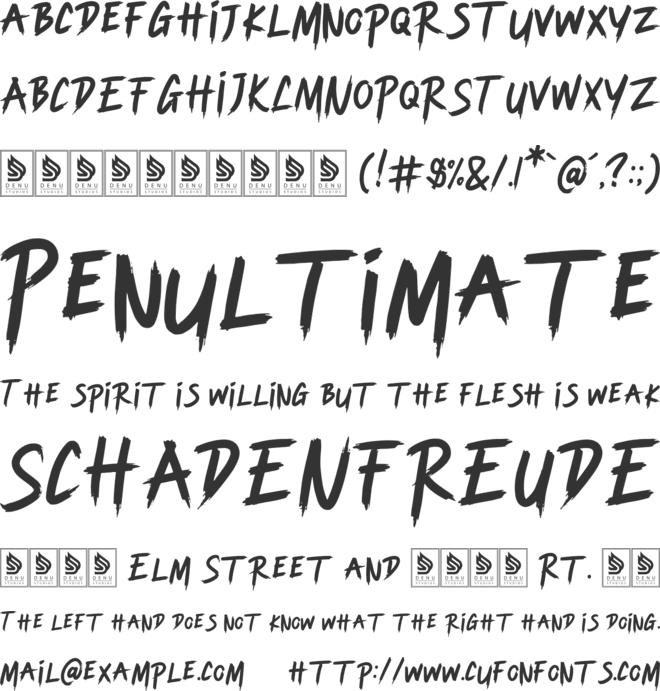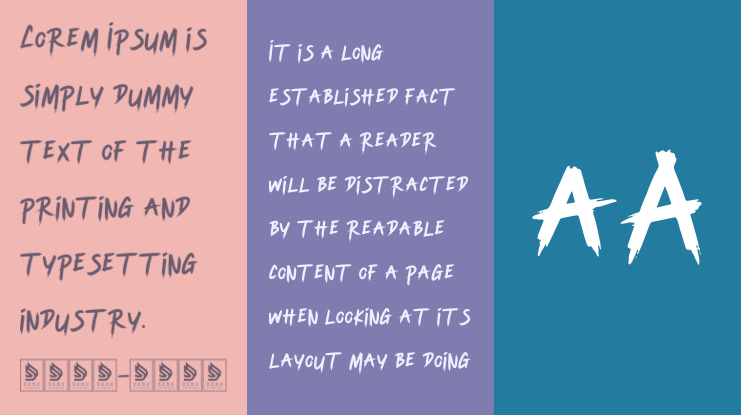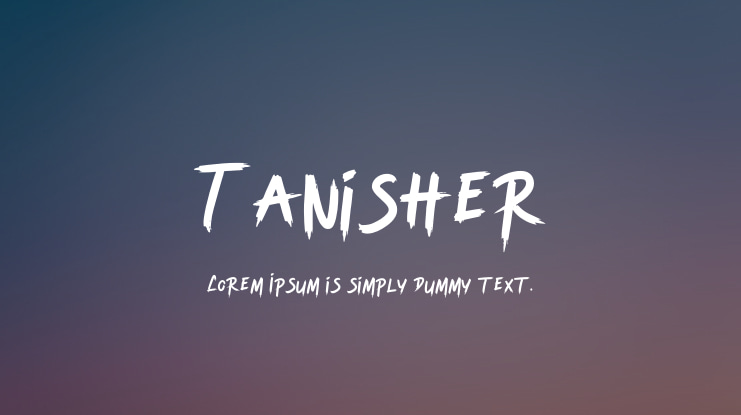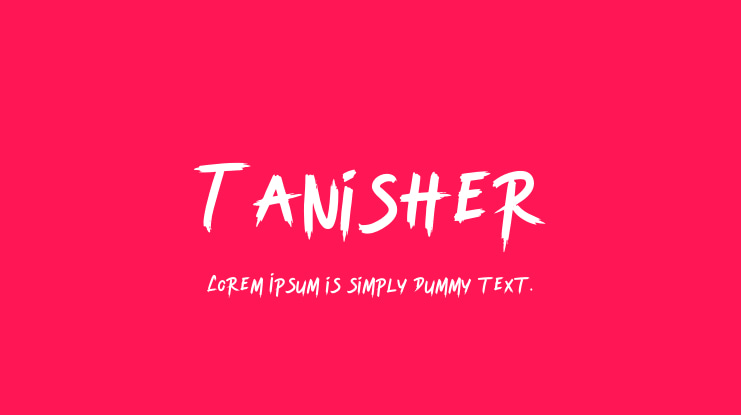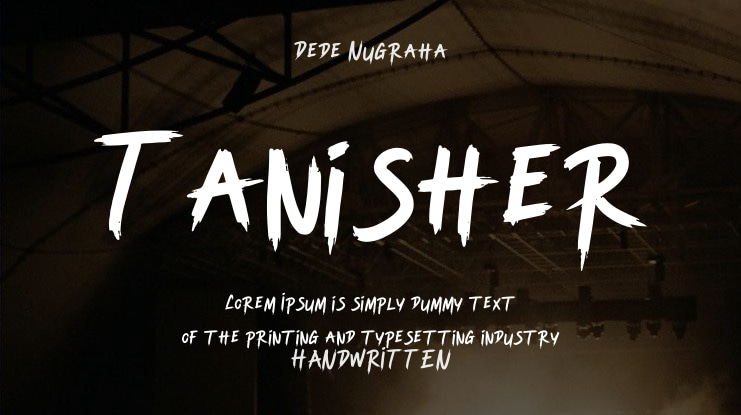
Tanisher | Urban Brush Font is perfect for a variety of projects including logos, branding, homeware designs, product packaging, mugs, quotes, posters, shopping bags, t-shirts, book covers, name cards, invitations, greeting cards, labels, photography, watermarks, special events, and any other projects that could benefit from a touch of Urban Brush Font style.